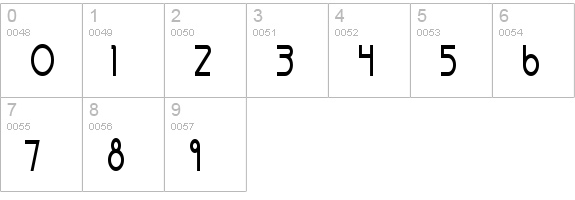
Persia Thin Bold Font Details
Persia Thin Bold is a delicate, low-contrast variant in the Persia typeface family \xE2\x80\x94 well suited to fashion editorial, minimal branding, and high-contrast display.
Introducing Persia Thin Bold, a captivating and modern typeface that exudes elegance and sophistication. With its sleek and slender design, this font is perfect for adding a touch of refinement to any creative project. Persia Thin Bold boasts a remarkable balance between thin strokes and bold letterforms, resulting in a harmonious blend of delicacy and strength. Its clean lines and sharp edges create a distinct visual impact, making it an excellent choice for headlines, logos, branding materials, and more. This versatile font offers a wide range of applications, whether you're designing a magazine layout, website interface, or invitation cards. Its legibility remains intact even at smaller sizes, ensuring that your message is effortlessly communicated to your audience. One of the best features of Persia Thin Bold is that it is freely available to download at FontsMarket.com. This means that you can access this stunning font without any cost, making it a valuable asset for both personal and commercial use. Its flexibility and accessibility make it a must-have for designers, typographers, and creatives alike. So why wait? Elevate your design projects with the timeless appeal of Persia Thin Bold. Download it today from FontsMarket.com and unlock a world of possibilities in typography. Embrace the elegance and grace this font brings, and watch as your creations come to life in a truly captivating manner.